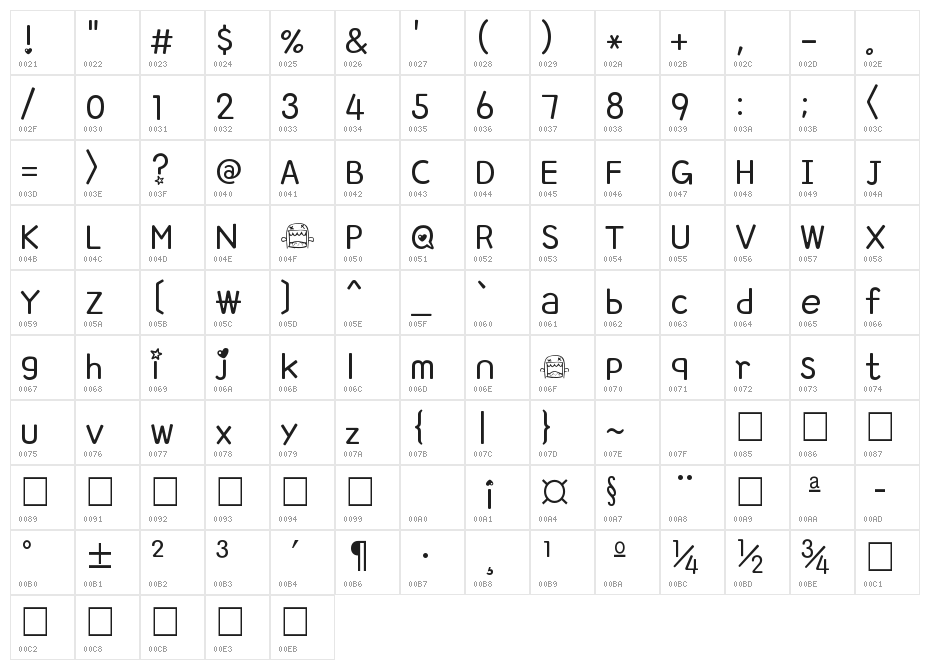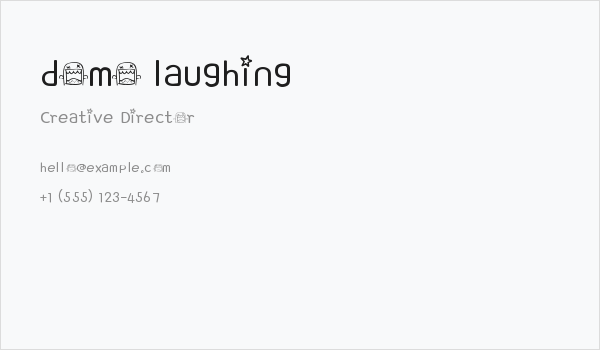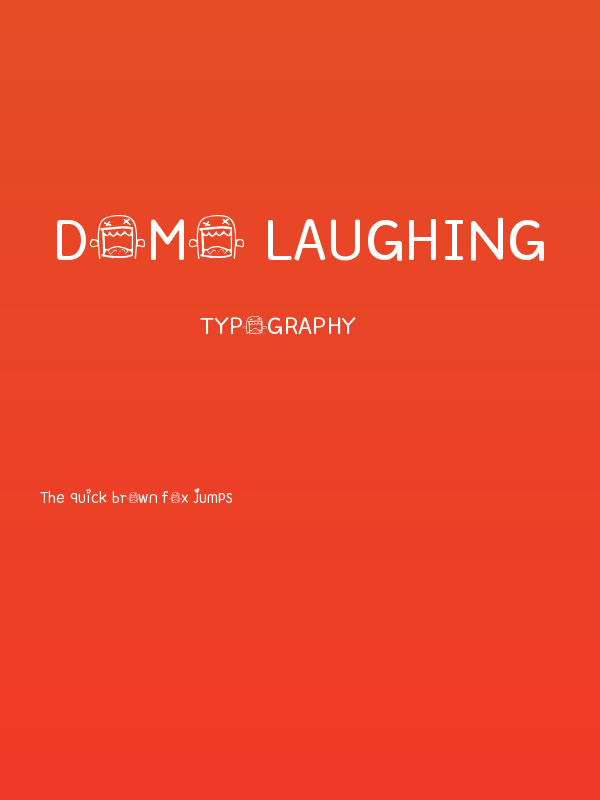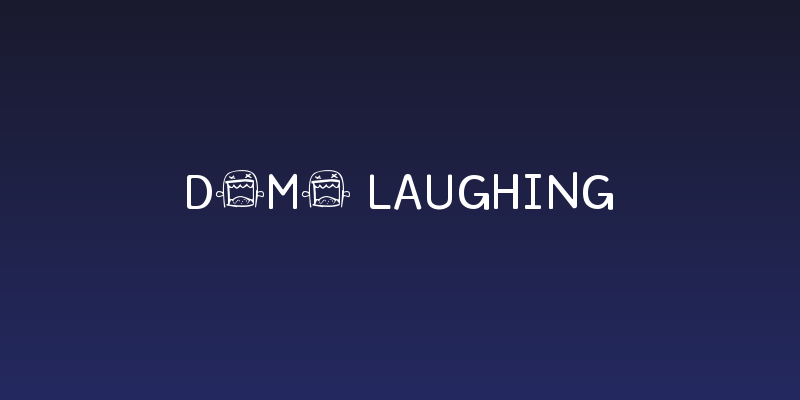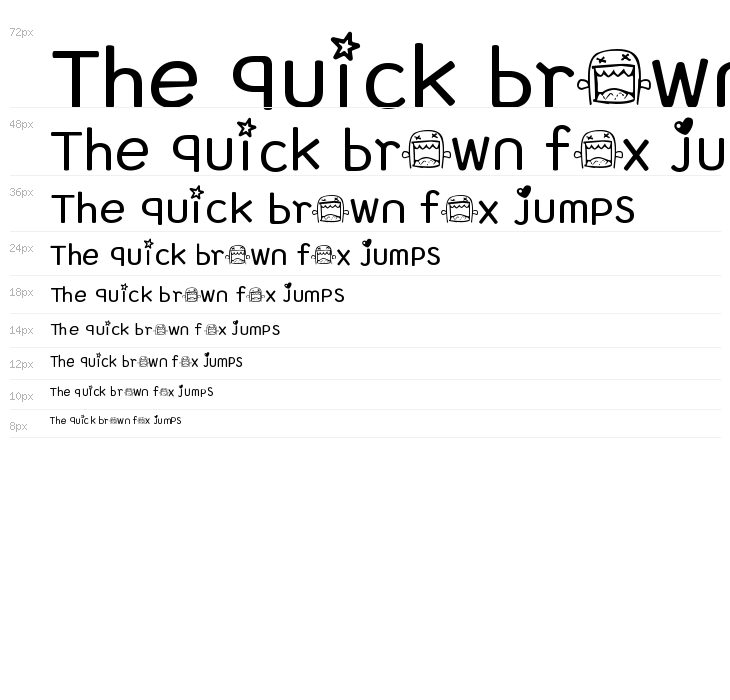
domo laughing Font
domo laughing Description
This playful and quirky font features a unique blend of rounded and geometric shapes, with a distinct personality. The uppercase letters are bold and clear, while the lowercase letters maintain a friendly and approachable feel. Special characters, such as the heart and star, add a whimsical touch, making the font stand out. The inclusion of a character with a cartoonish face adds an element of fun and creativity. The numbers are consistent with the overall style, ensuring readability and coherence. This font is perfect for projects that require a lighthearted and engaging aesthetic.
| Overall Style | Playful, Quirky, Fun |
| Proposed Projects | Ideal for children's books, playful branding, creative posters, and fun social media graphics. |